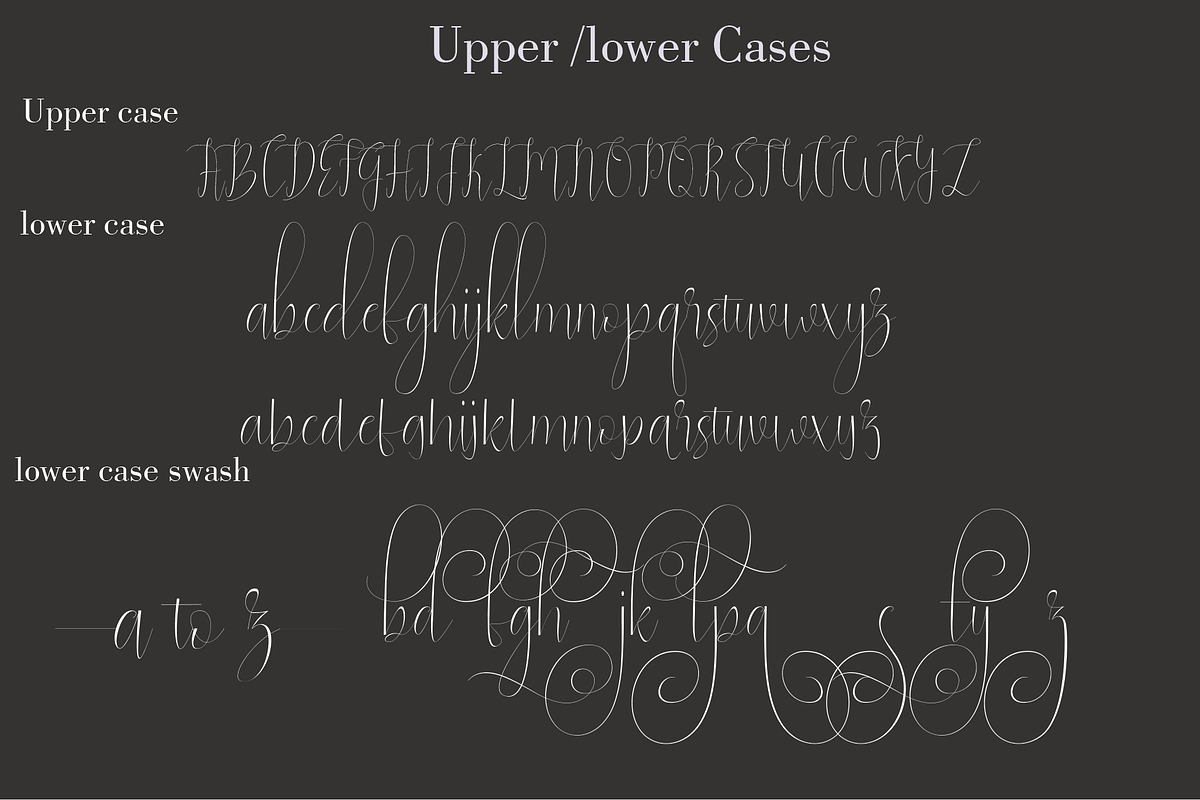
natasya
natasya is a unique font that combines two font shapes that are suitable for some of your craft needs so that it looks more attractive in presenting atoupun adjusting your imagination level in working on your craft project, this font combines the appropriate types of invitations and invites you to be more relaxed in other forms ... try to see ... the swash combination that makes you feel more unique in it.